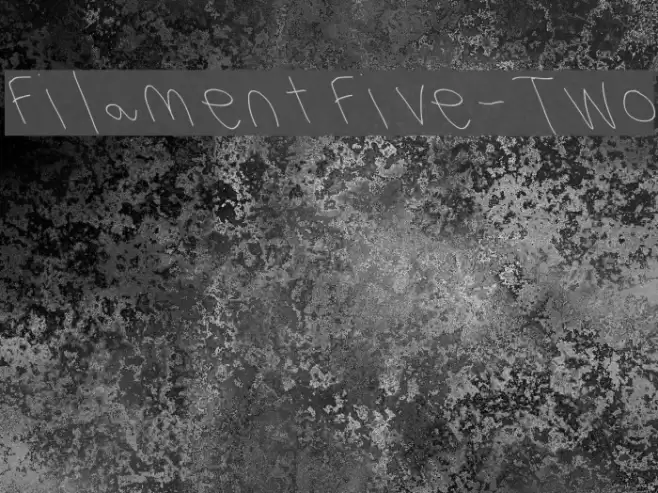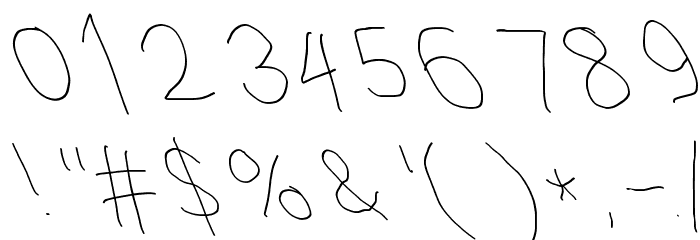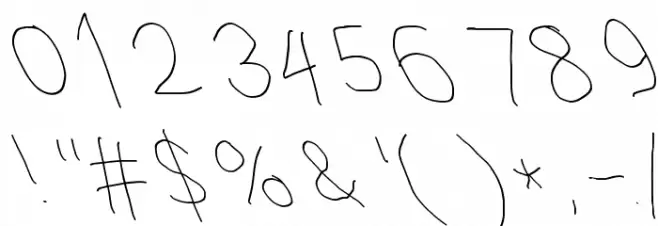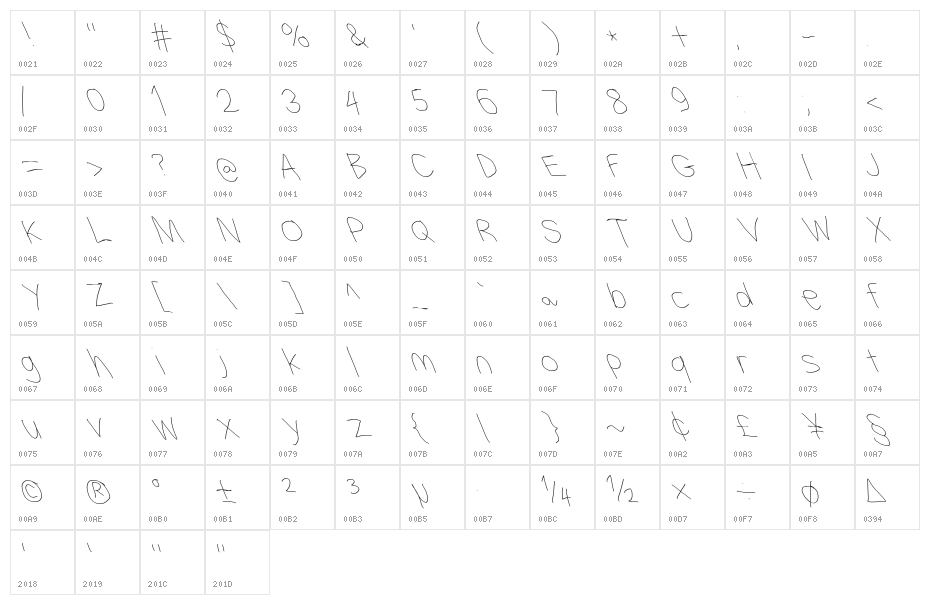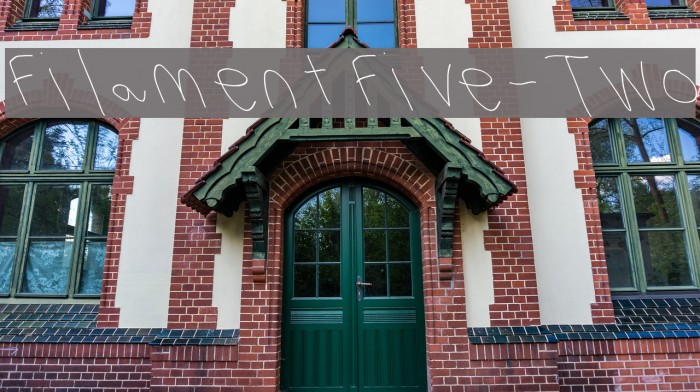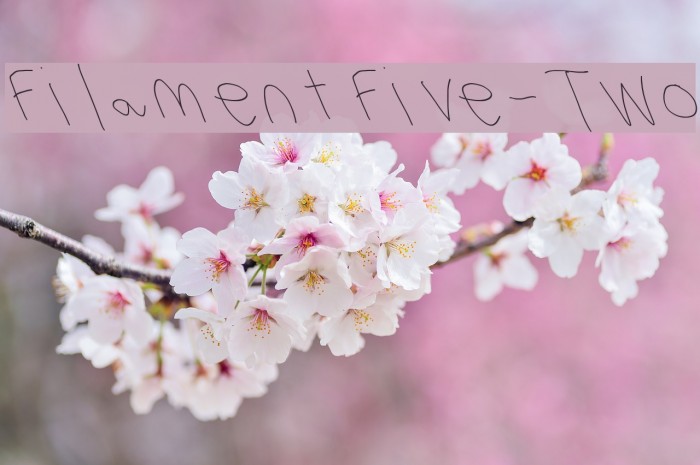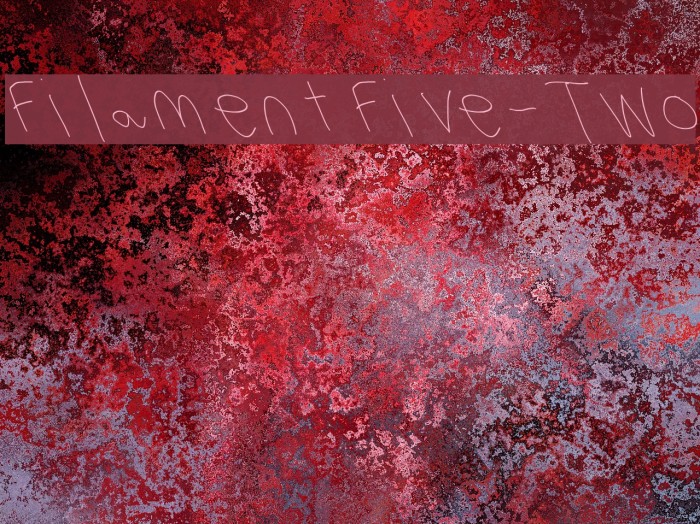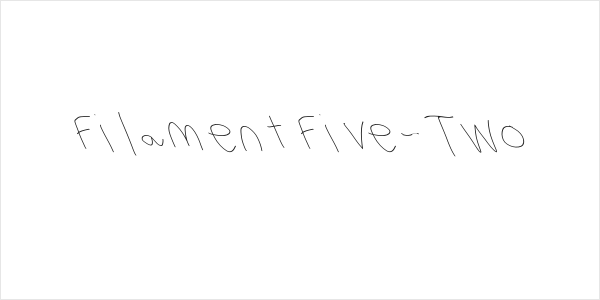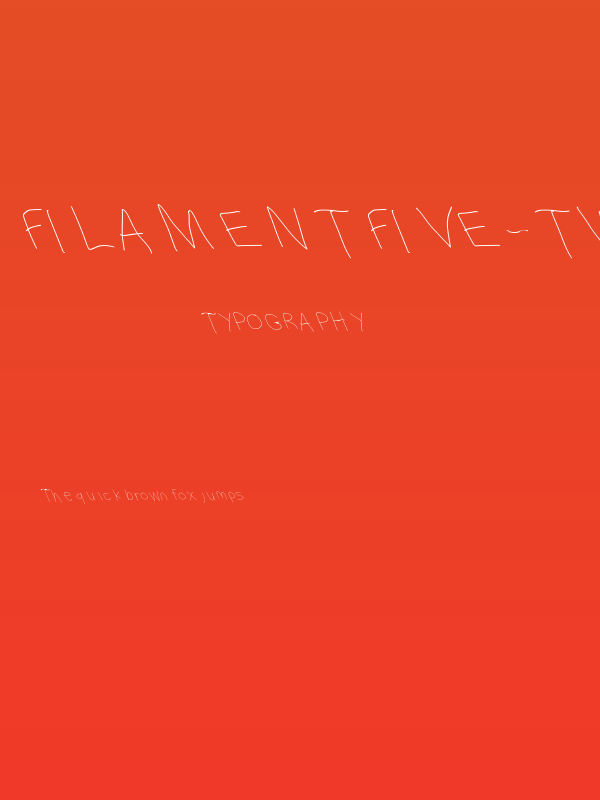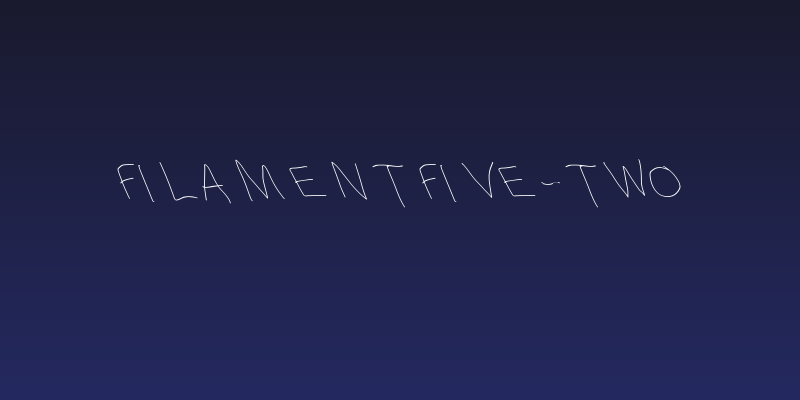
Filament Five-Two Font
Filament Five-Two Description
This font features a playful and casual handwritten style, characterized by its thin, slightly uneven strokes that give it a whimsical and informal appearance. The letters are free-flowing and organic, with a slight tilt that adds to the dynamic feel. The uppercase and lowercase letters maintain a consistent style, while the numerals and special characters complement the overall aesthetic. This font's unique charm makes it suitable for creative and informal projects, where a personal touch is desired.
A playful, thin, handwritten font with a whimsical and informal style from Handwritten fonts.
- Proposed Projects: Ideal for greeting cards, children's books, casual invitations, and personal branding.
- Overall Style: Casual, Whimsical
- Use Case: Headlines, Informal text, Creative projects